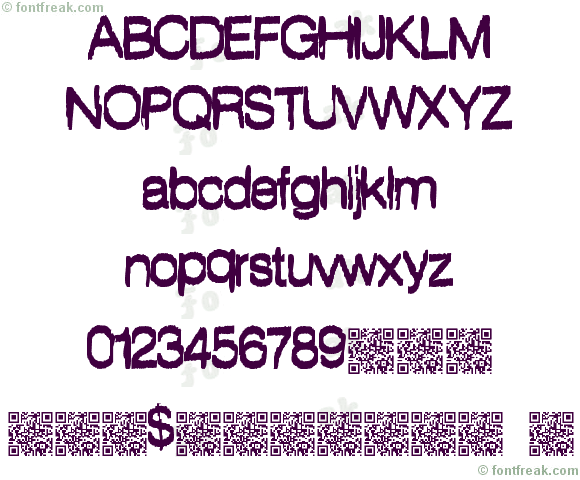
HelpingStranger
About HelpingStranger
The HelpingStranger font by XEROGRAPHER FONTS is a unique display typeface that embodies a playful and informal character. This font features a slightly irregular stroke weight, giving it a hand-drawn appearance that adds a personal touch to any project. The letters exhibit a moderate contrast, with some characters appearing bolder than others, which enhances its visual interest. The spacing is deliberately loose, allowing for a casual flow that makes it approachable and friendly. Its decorative elements are subtle yet impactful, making HelpingStranger versatile for various applications.
Best suited for creative projects, the HelpingStranger font shines in contexts such as wedding invitations, where its whimsical style can evoke a sense of joy and celebration. It is equally effective for crafting eye-catching movie posters, where the font can draw attention and convey a sense of intrigue. Restaurant menus can also benefit from its inviting nature, making the dining experience feel more personal and accessible. Additionally, content creators looking to add a distinctive touch to social media graphics will find this font an excellent choice for engaging their audience.
Targeted towards graphic designers, small business owners, and content creators, HelpingStranger appeals to those who wish to convey a sense of warmth and approachability in their work. The freeware licensing makes it an attractive option for those on a budget, allowing for creative freedom without financial constraints.
What sets the HelpingStranger font apart is its ability to blend a casual aesthetic with practical usability. Its friendly and informal style can elevate any design, making it a perfect choice for projects that aim to connect with audiences on a personal level. With a HelpingStranger font free download available, you can easily incorporate this charming typeface into your next project.